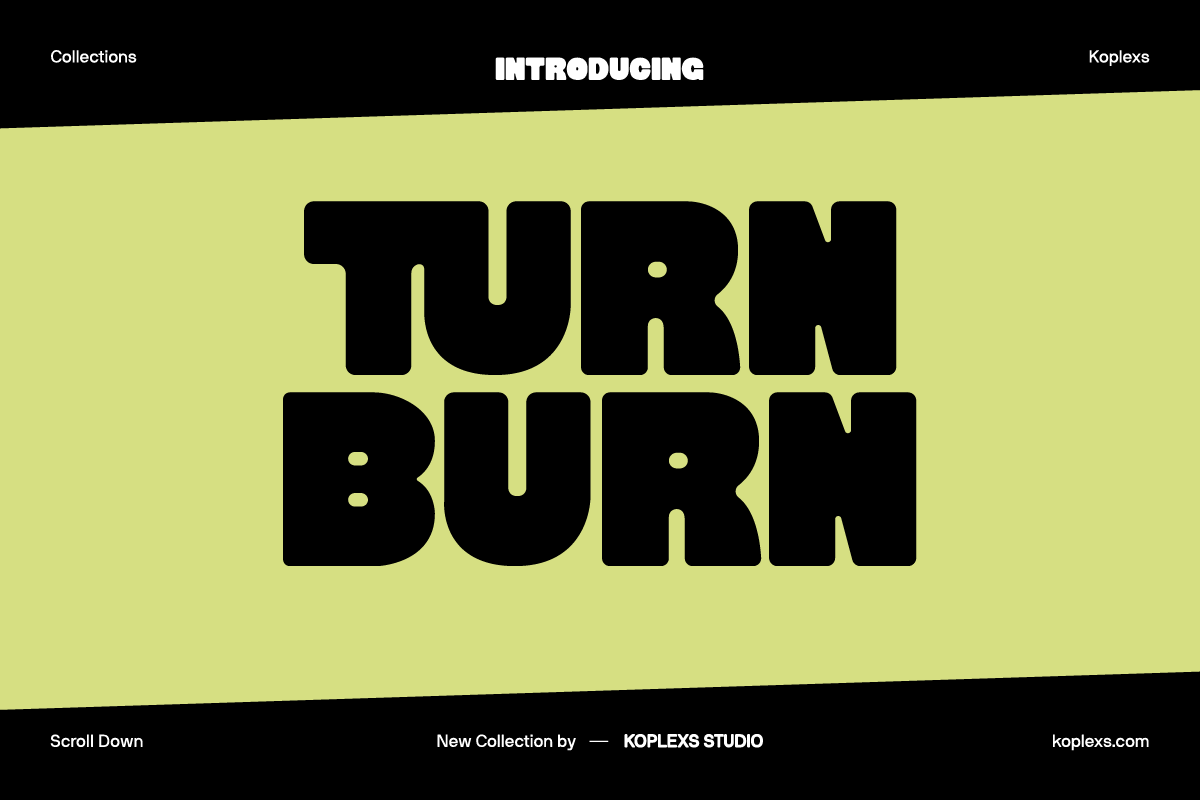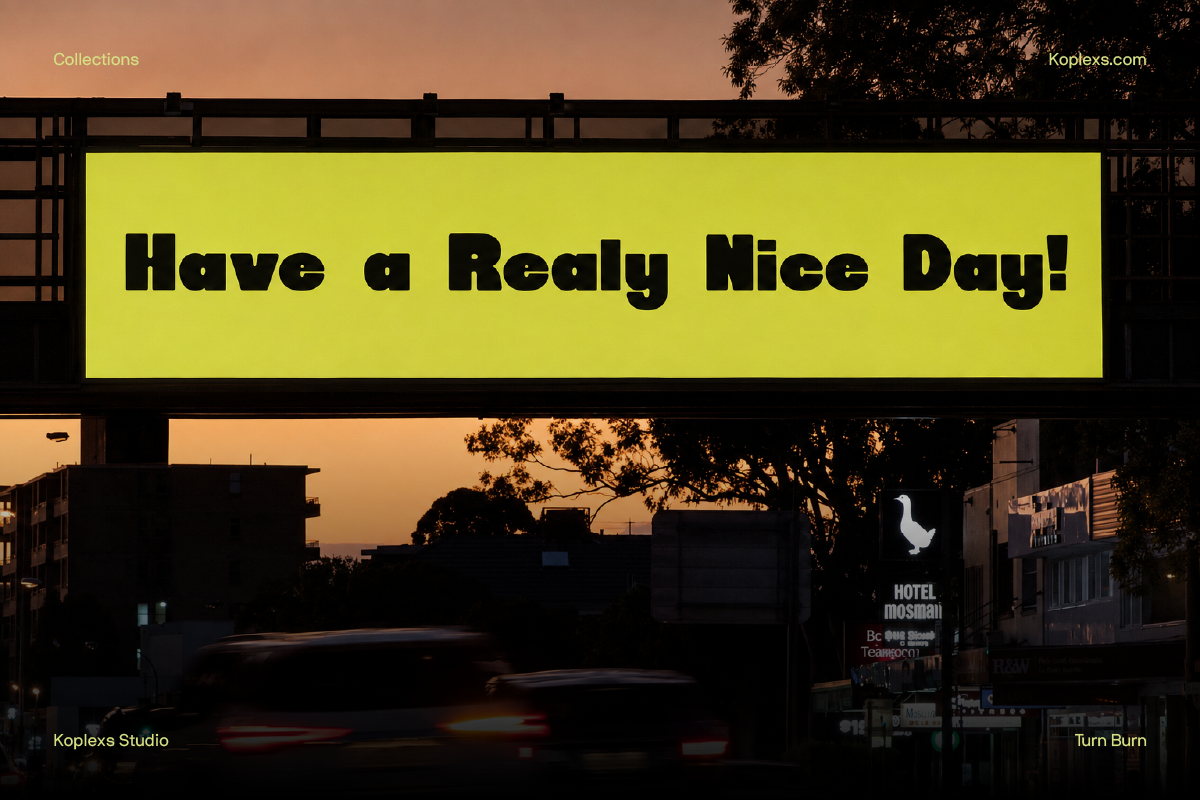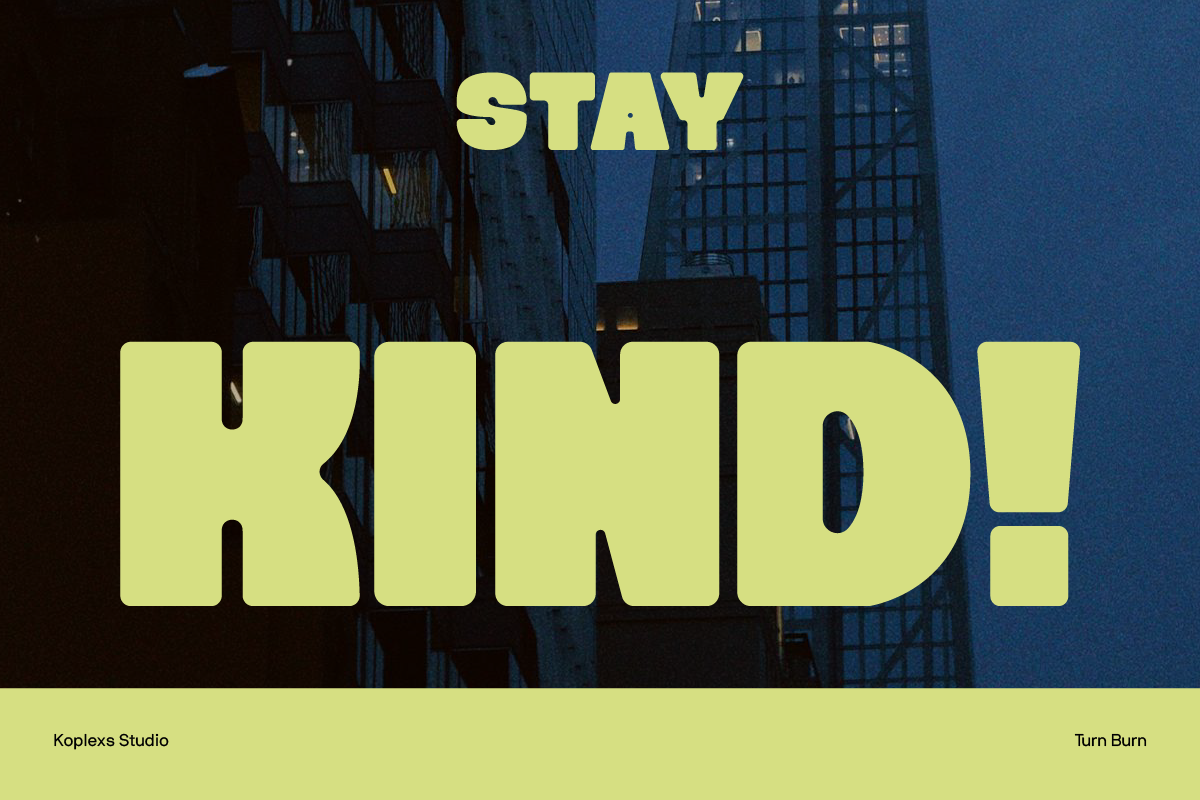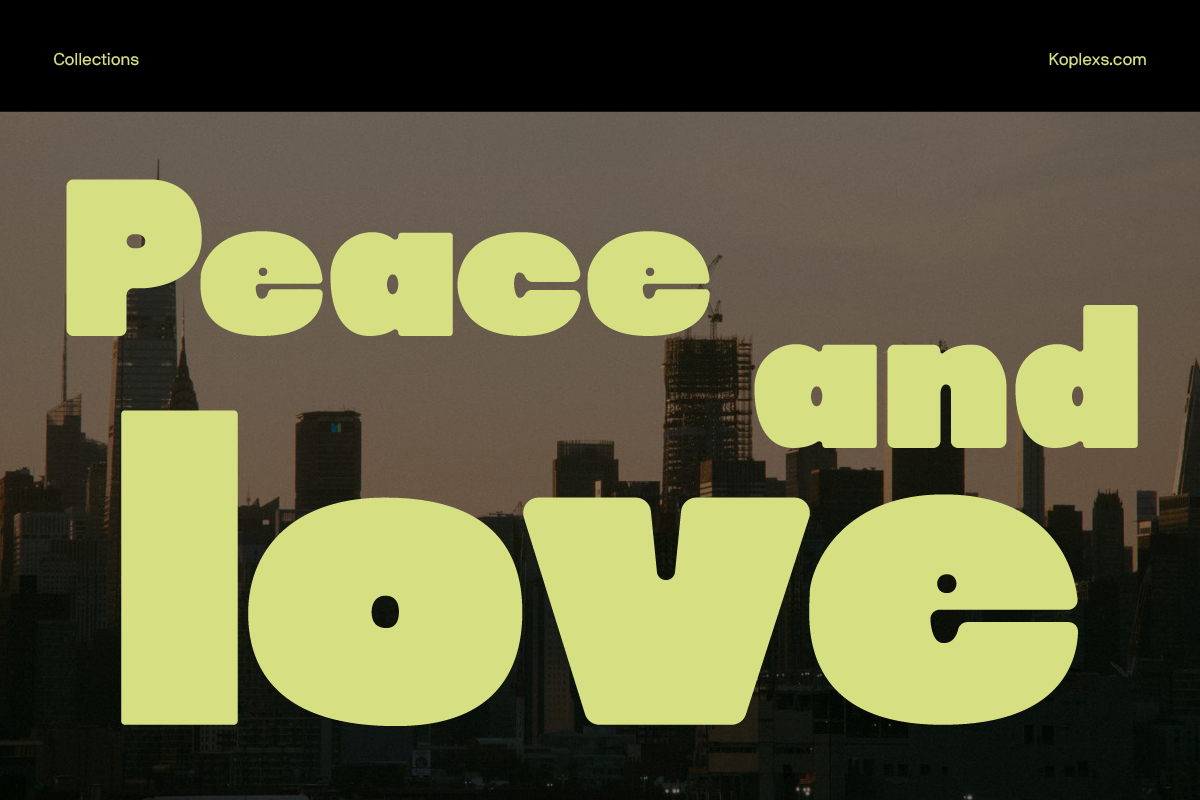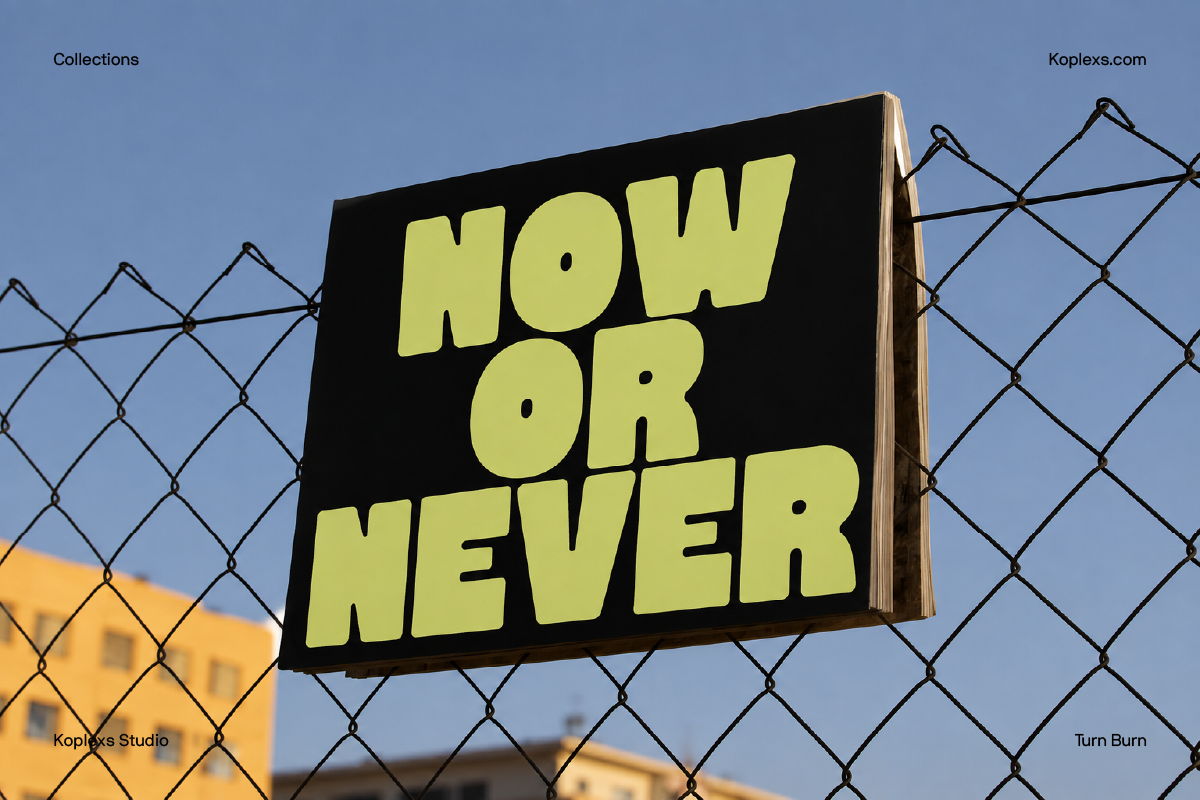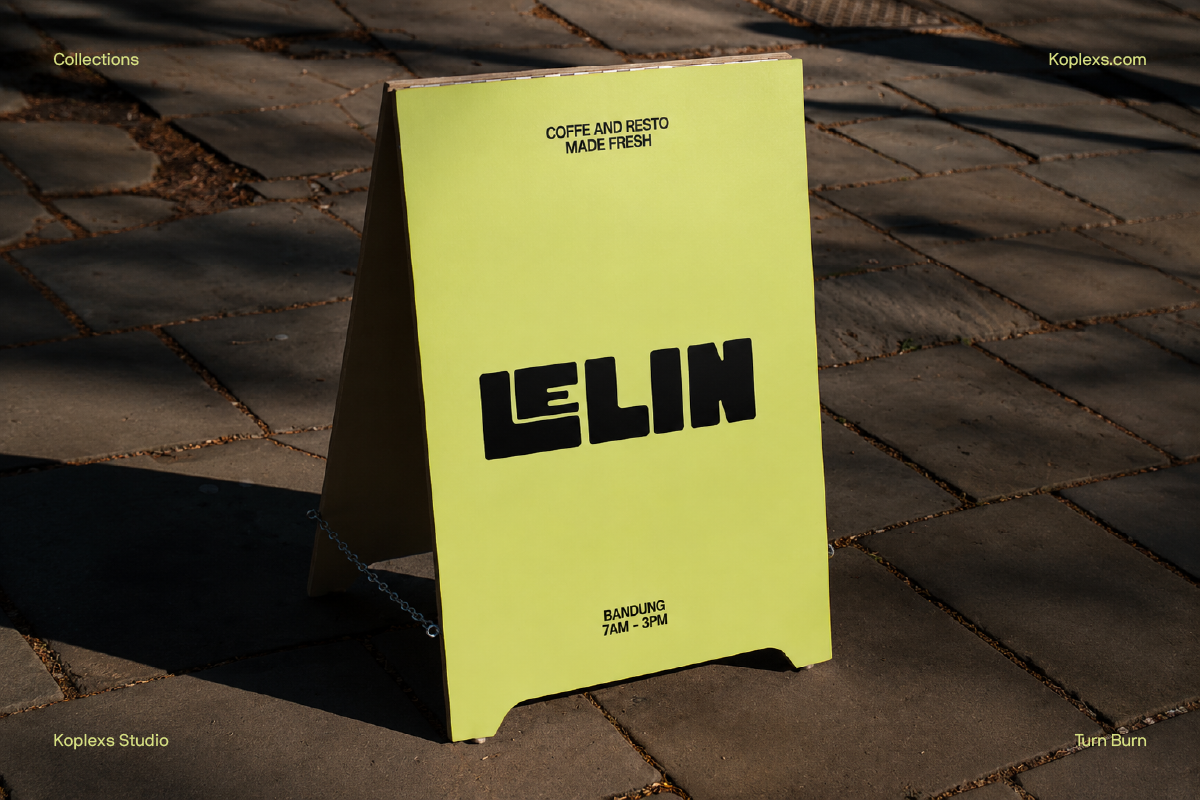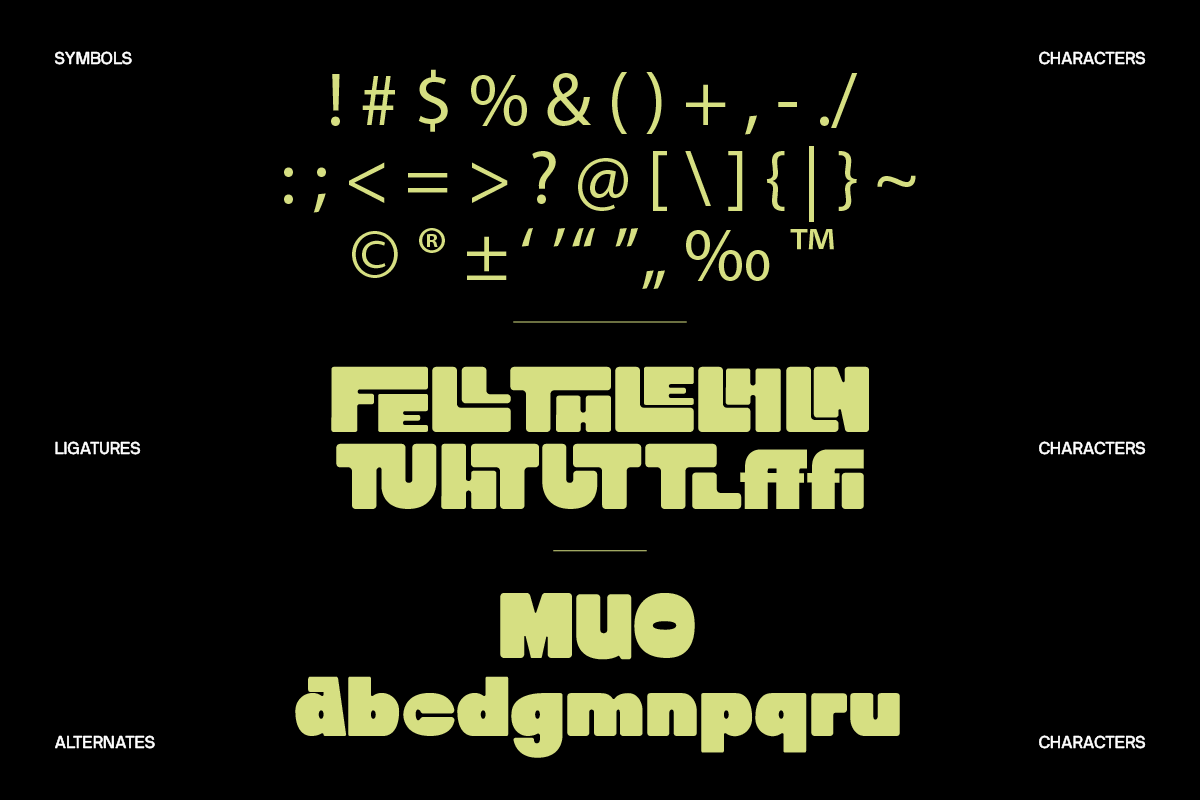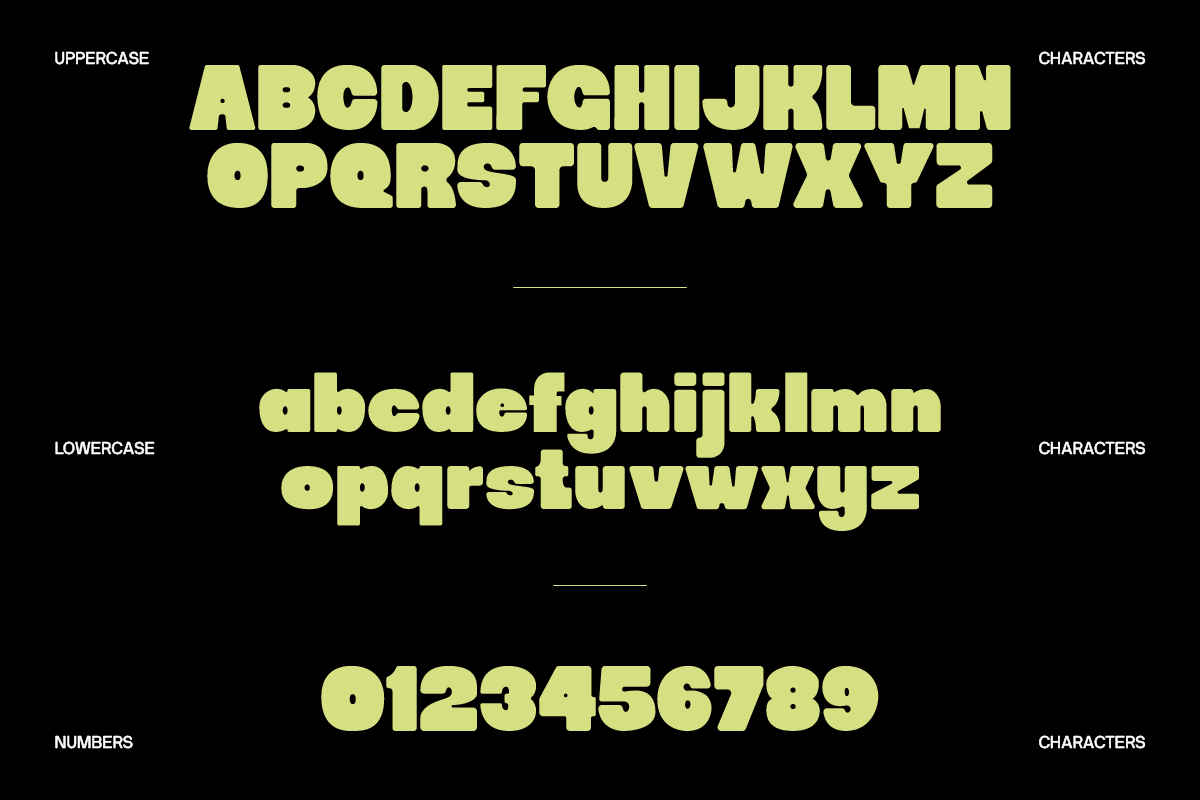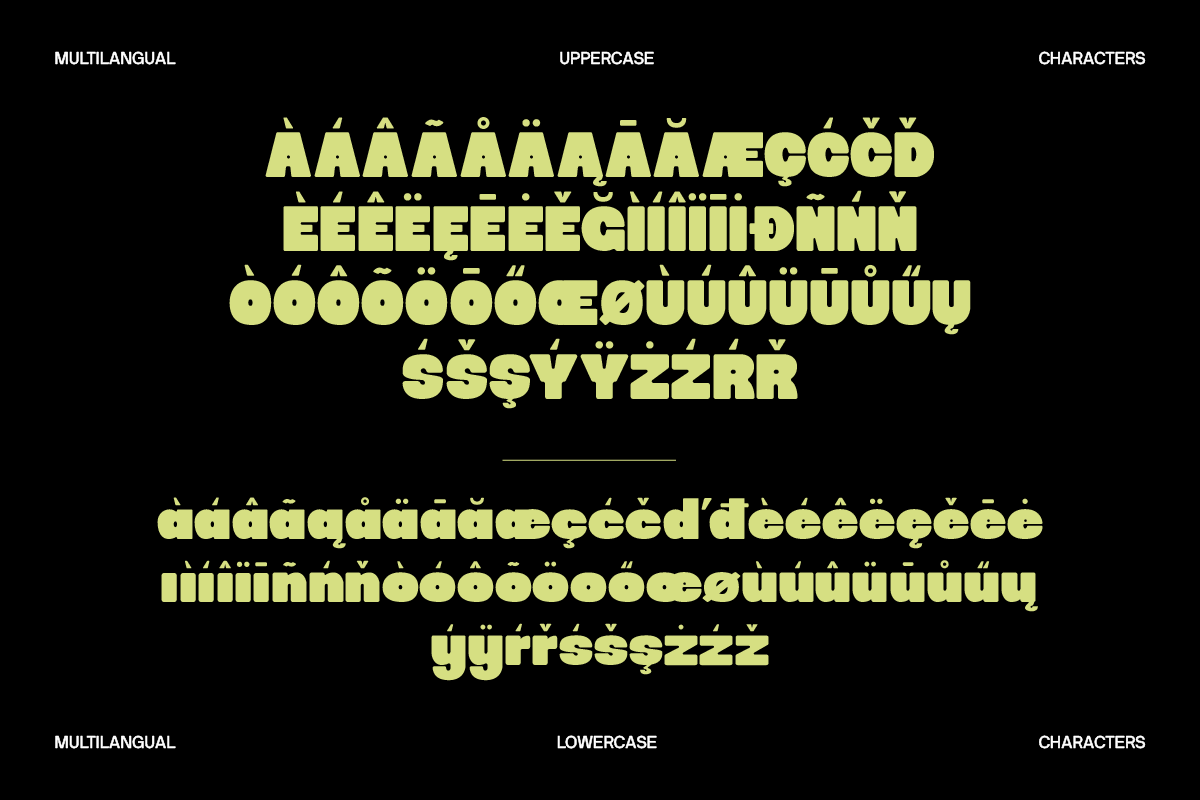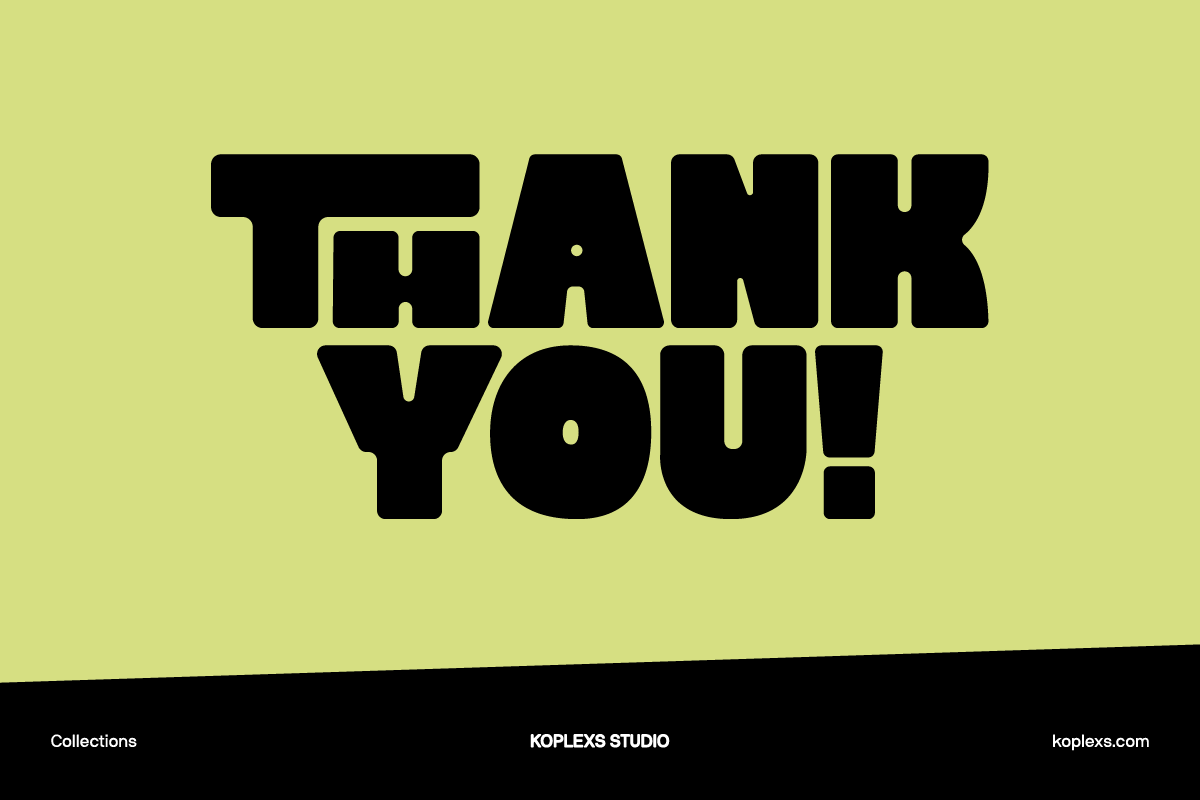
Turn Burn Font | Bold Retro Display Font for Branding
Turn Burn Font is a bold display font from Koplexs Studio with chunky letterforms, rounded corners, and playful details. Its compact shapes give short headlines a strong presence, while soft curves keep the overall look warm and approachable.
The lettering has the nostalgic character of a 1970s retro font. Thick strokes and offbeat counters add personality to brand names, packaging labels, and poster titles. It also suits projects that call for the expressive feel of a groovy font
- Ligatures and alternate characters
- Multilingual glyphs
What is Turn Burn Font best used for?
- Logos and lifestyle branding
- Food packaging and café signage
- Music posters and album covers
- T-shirts, stickers, and merchandise
- Editorial headlines and social media graphics
Use Turn Burn at larger sizes to show its distinctive shapes. Pair it with a simple sans serif for descriptions, menus, and supporting text.